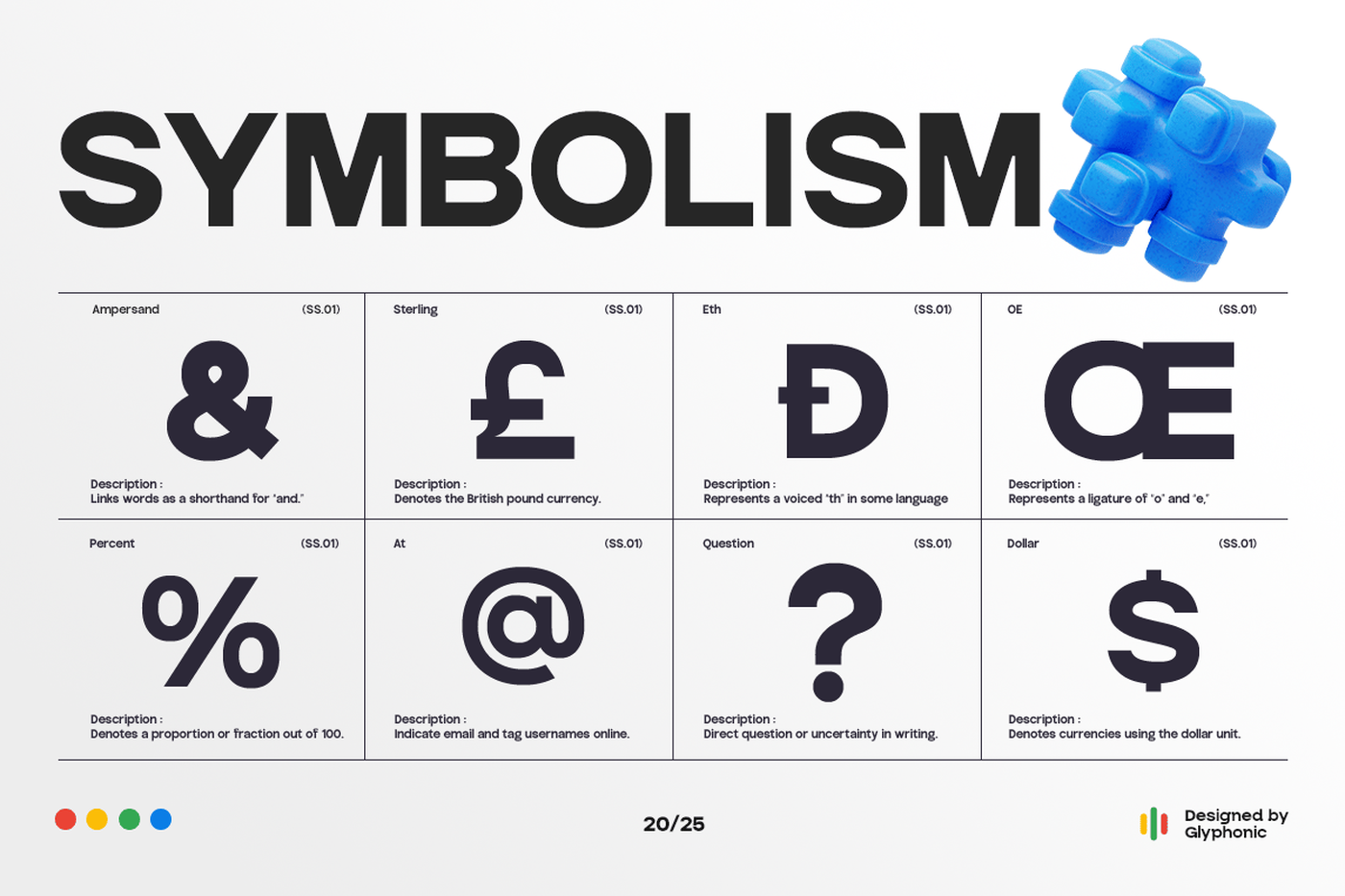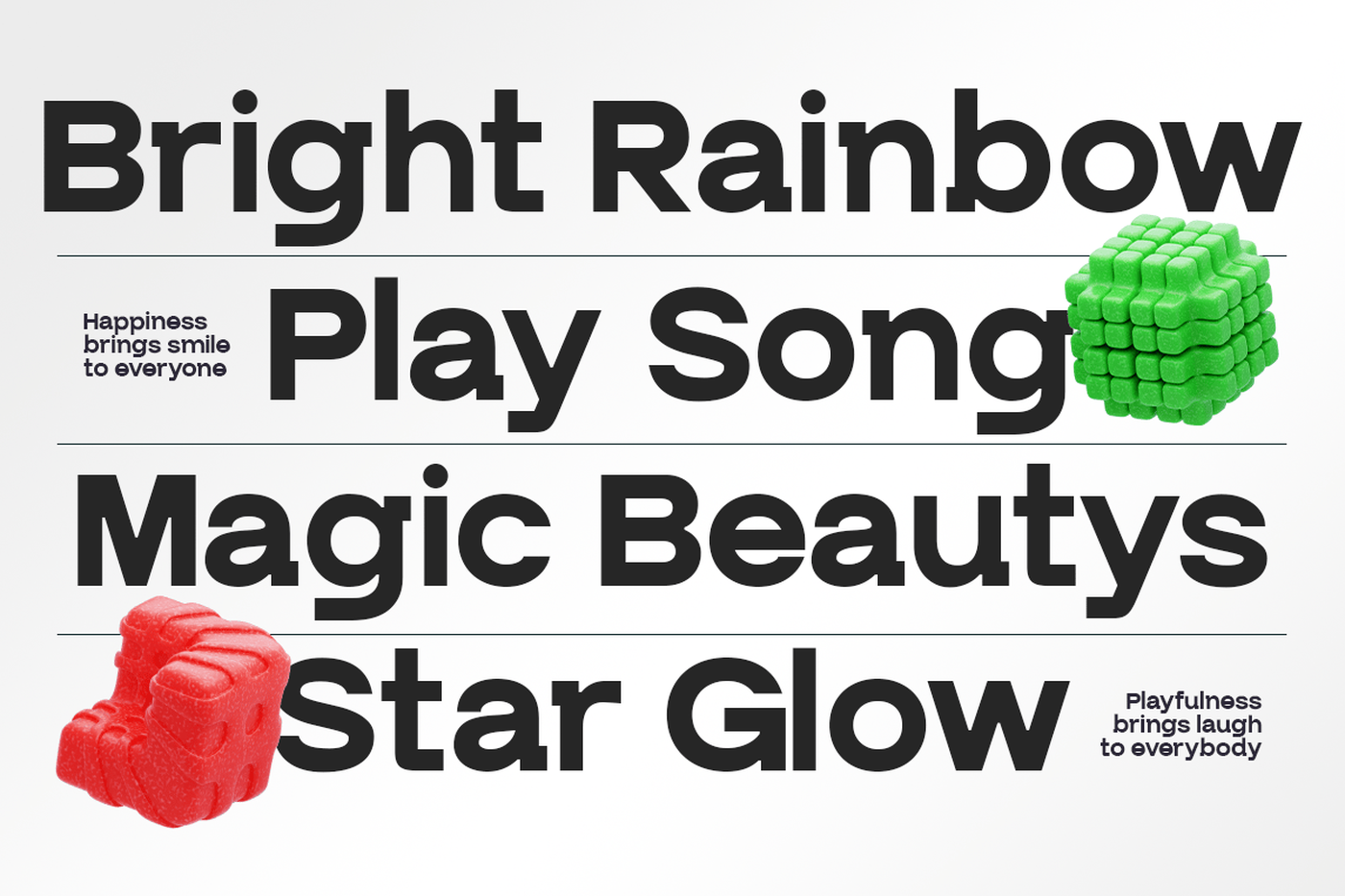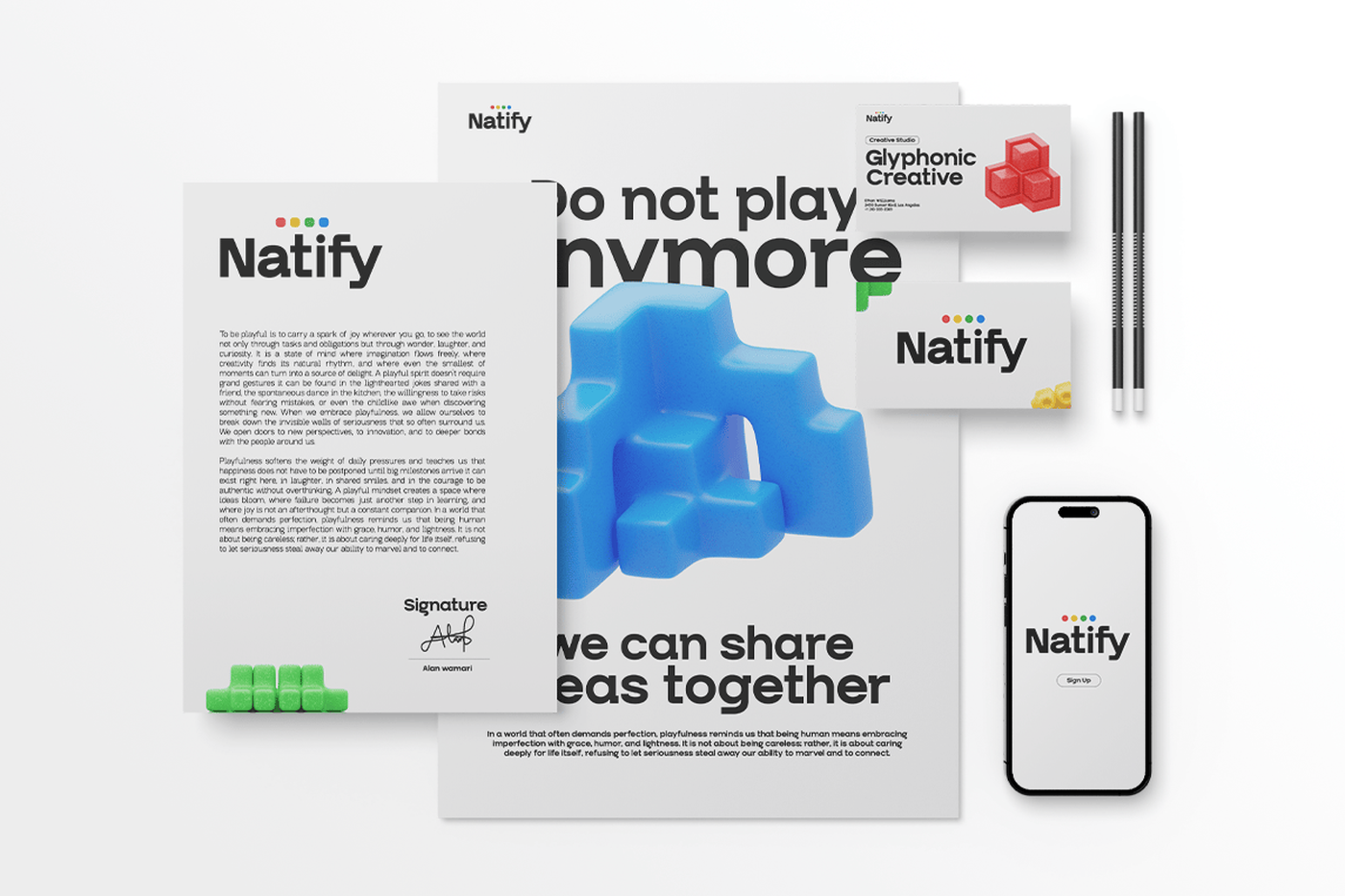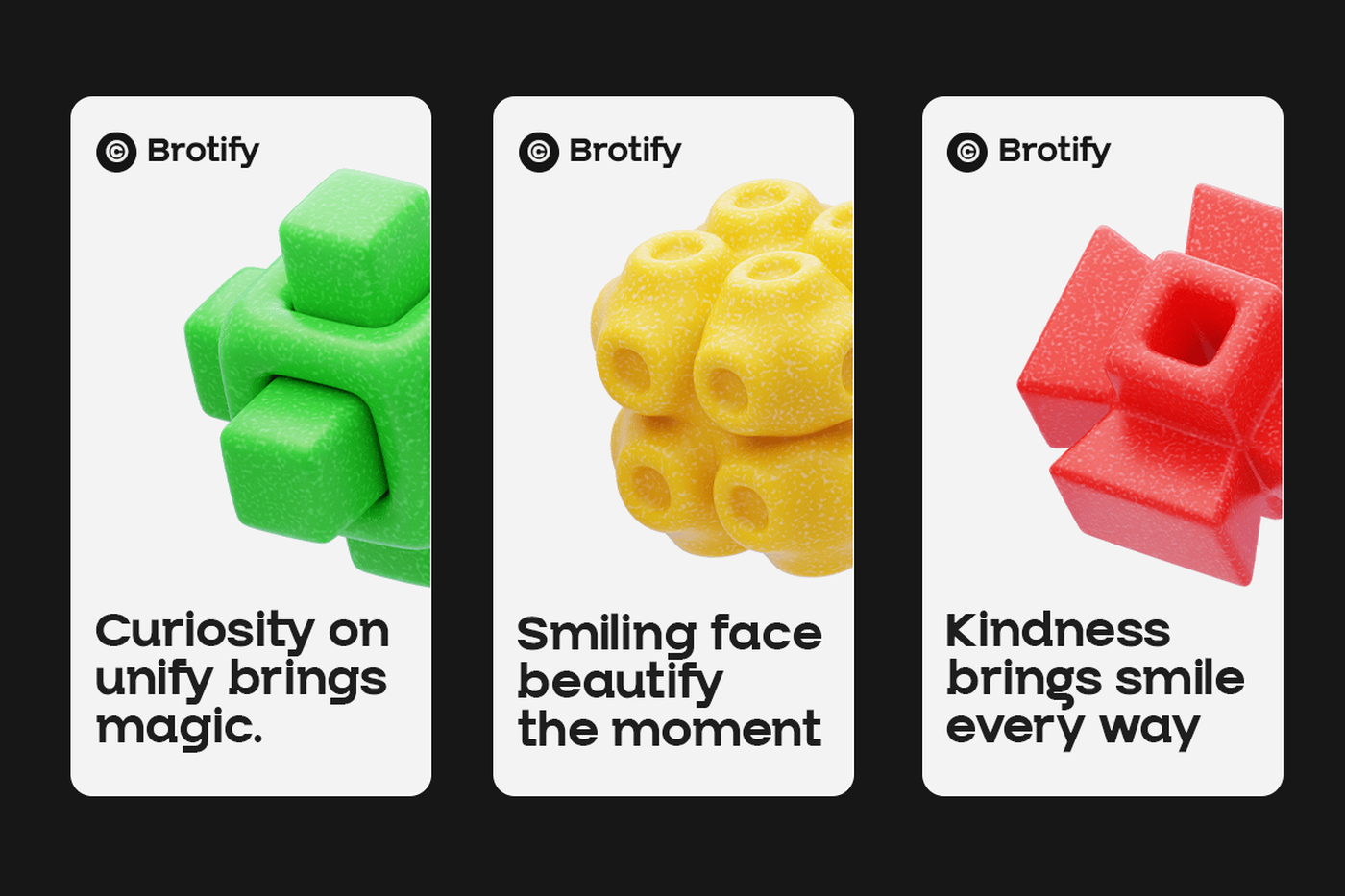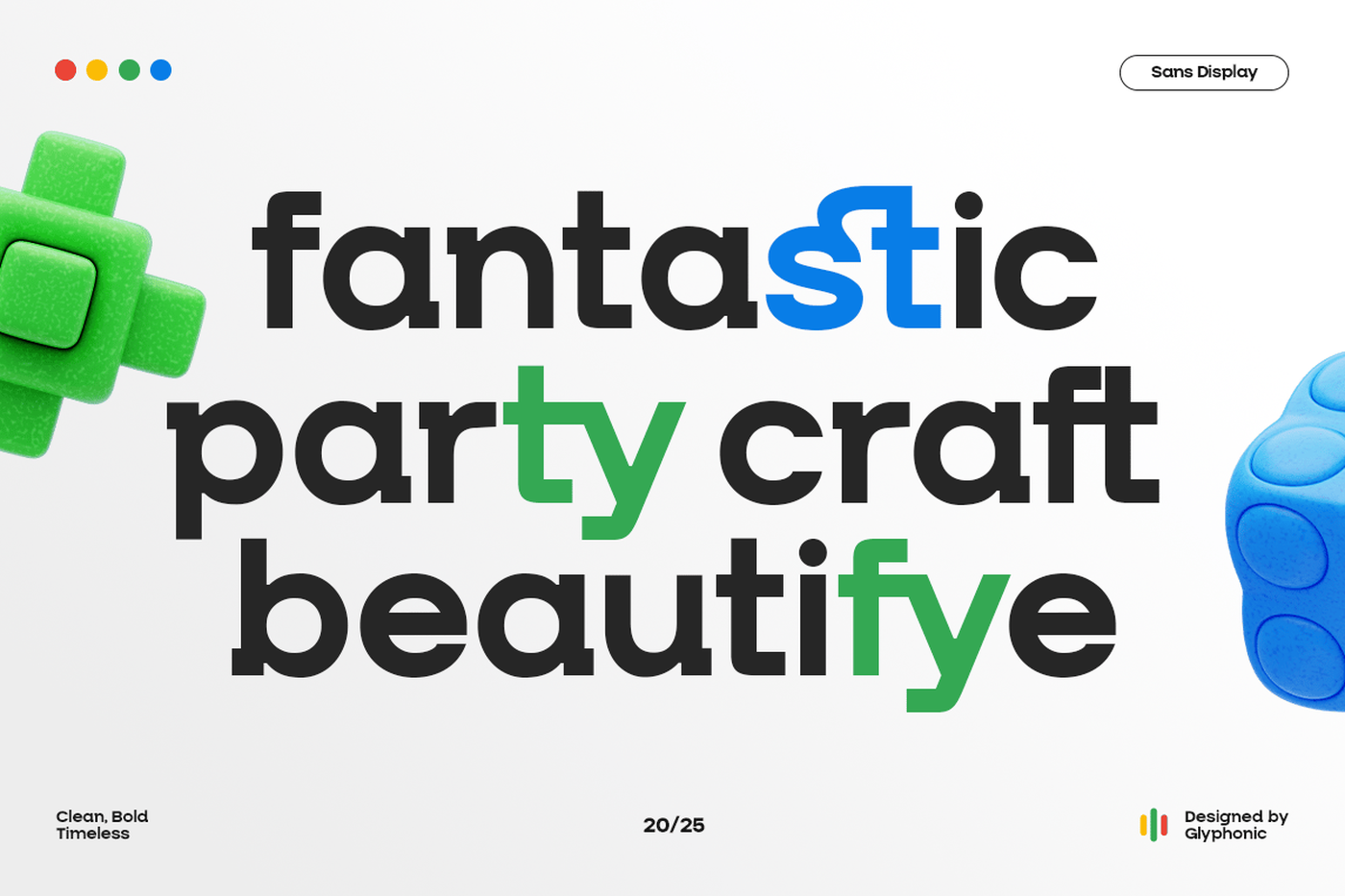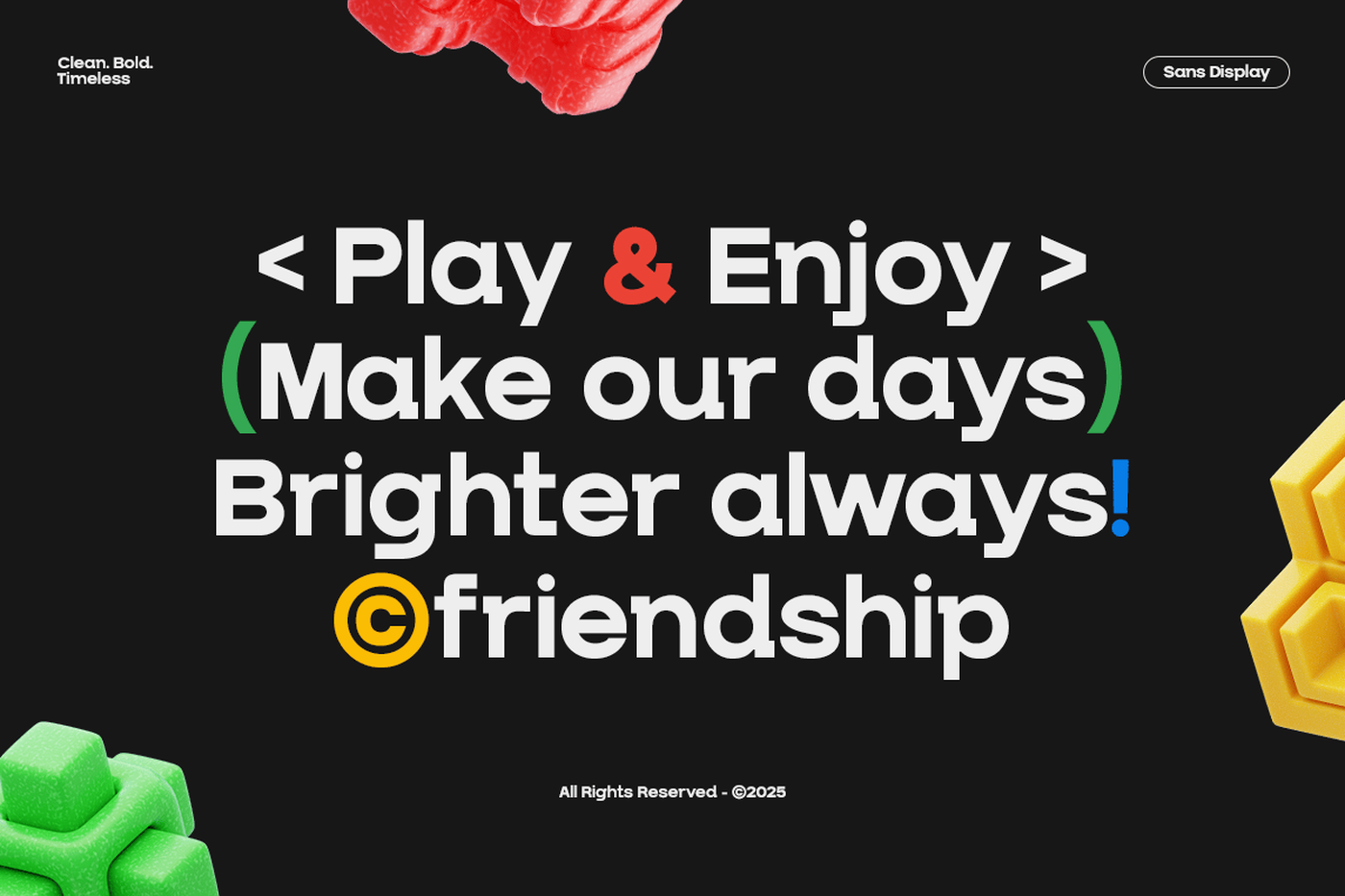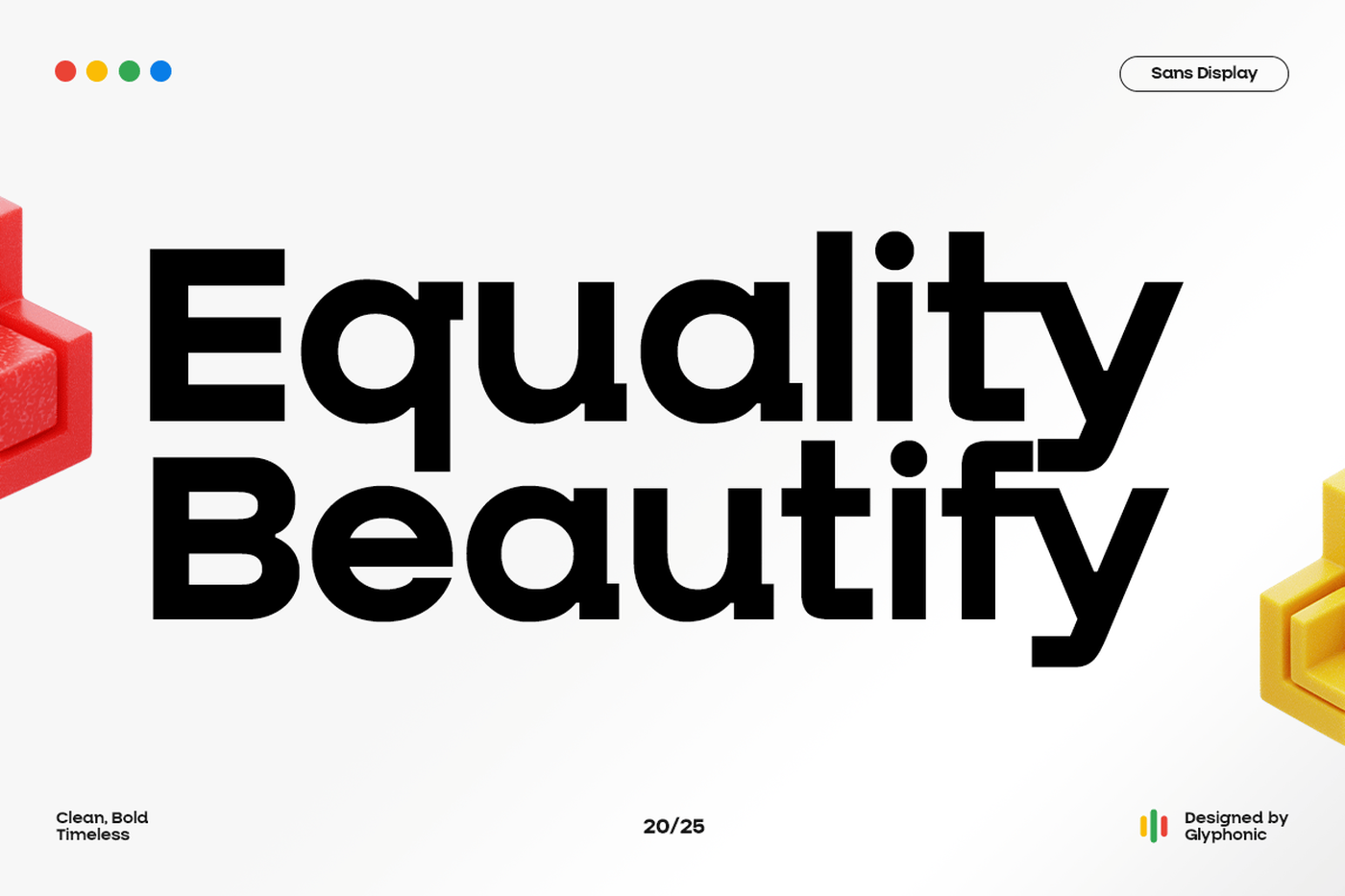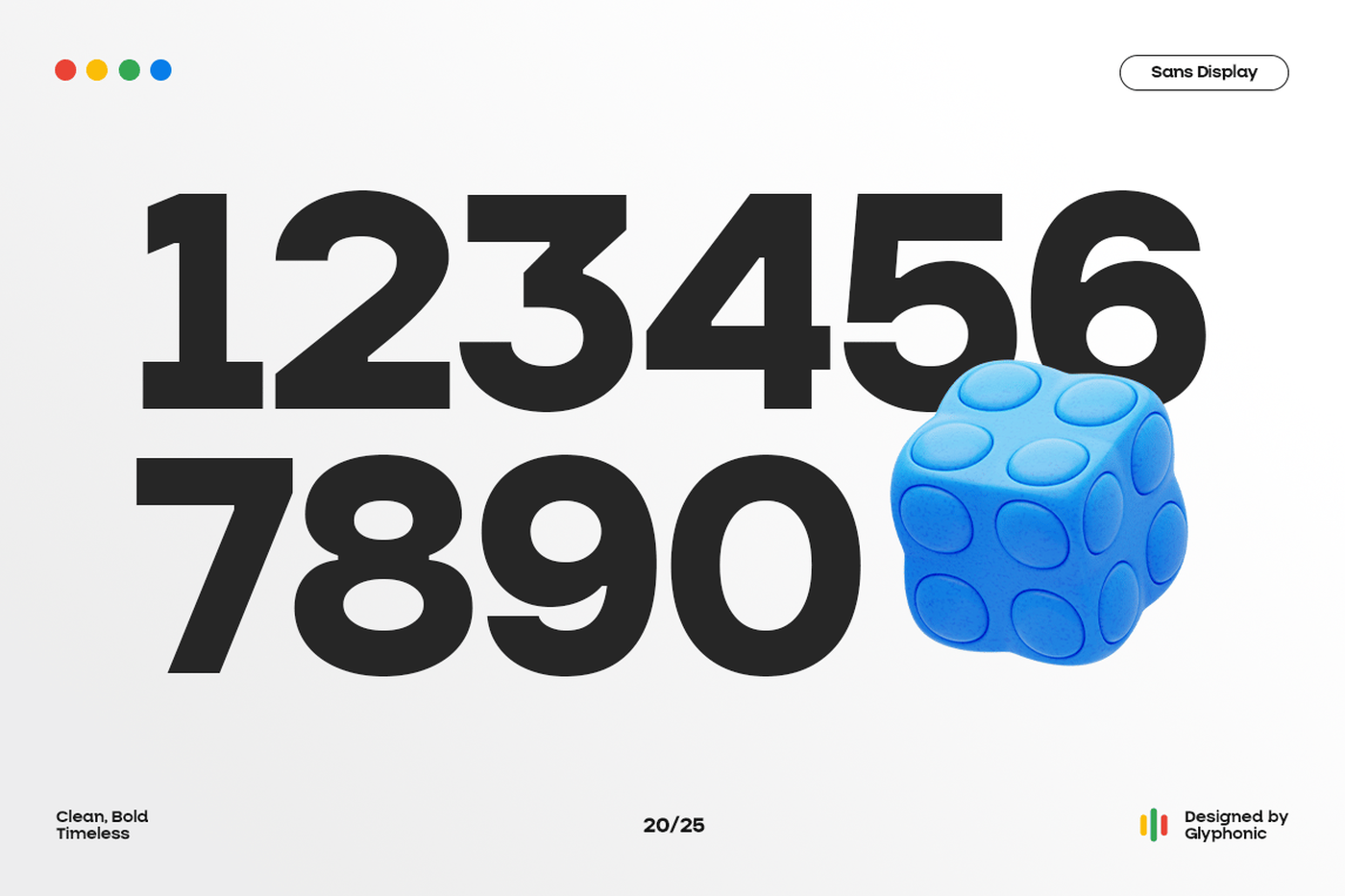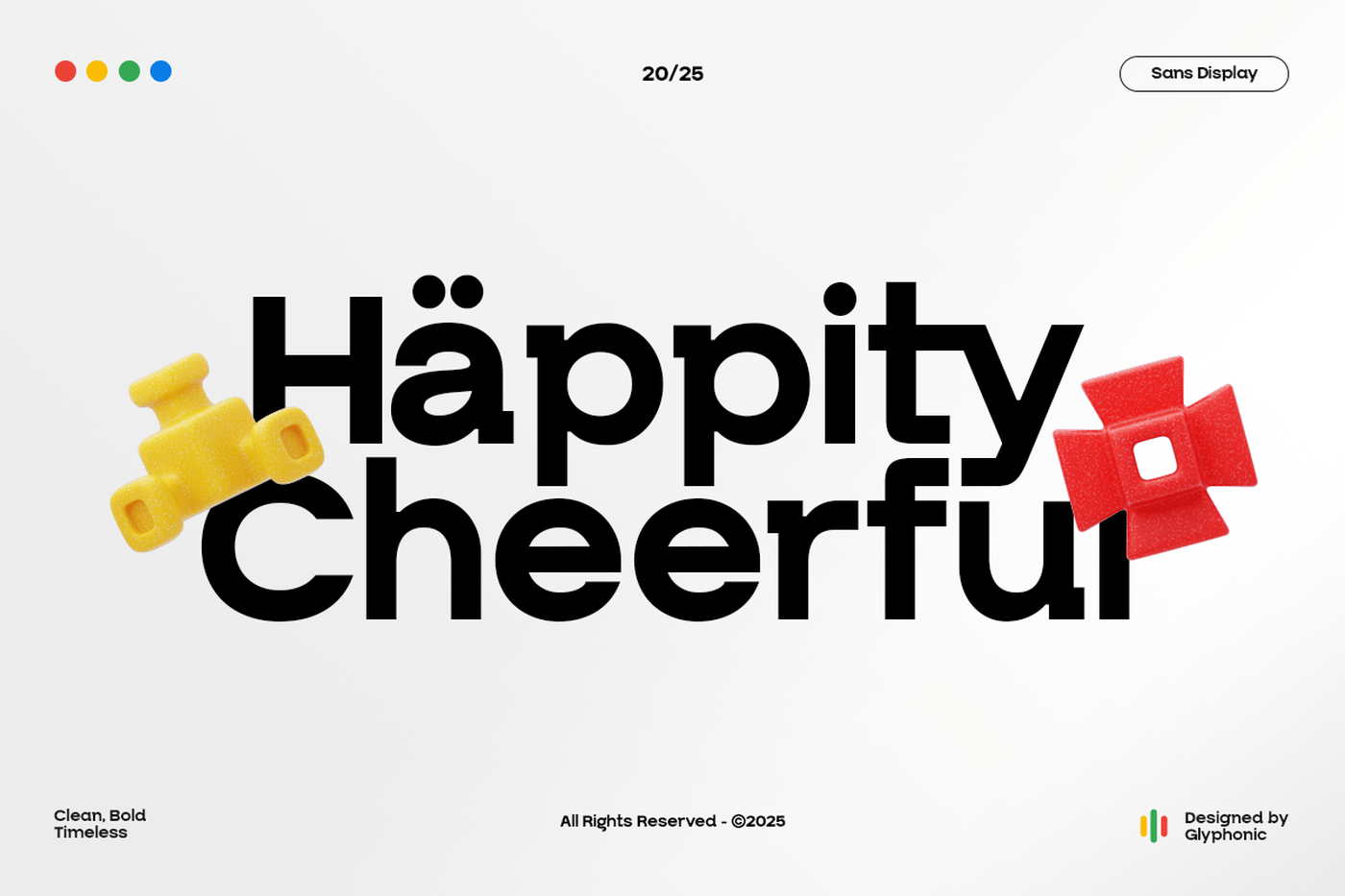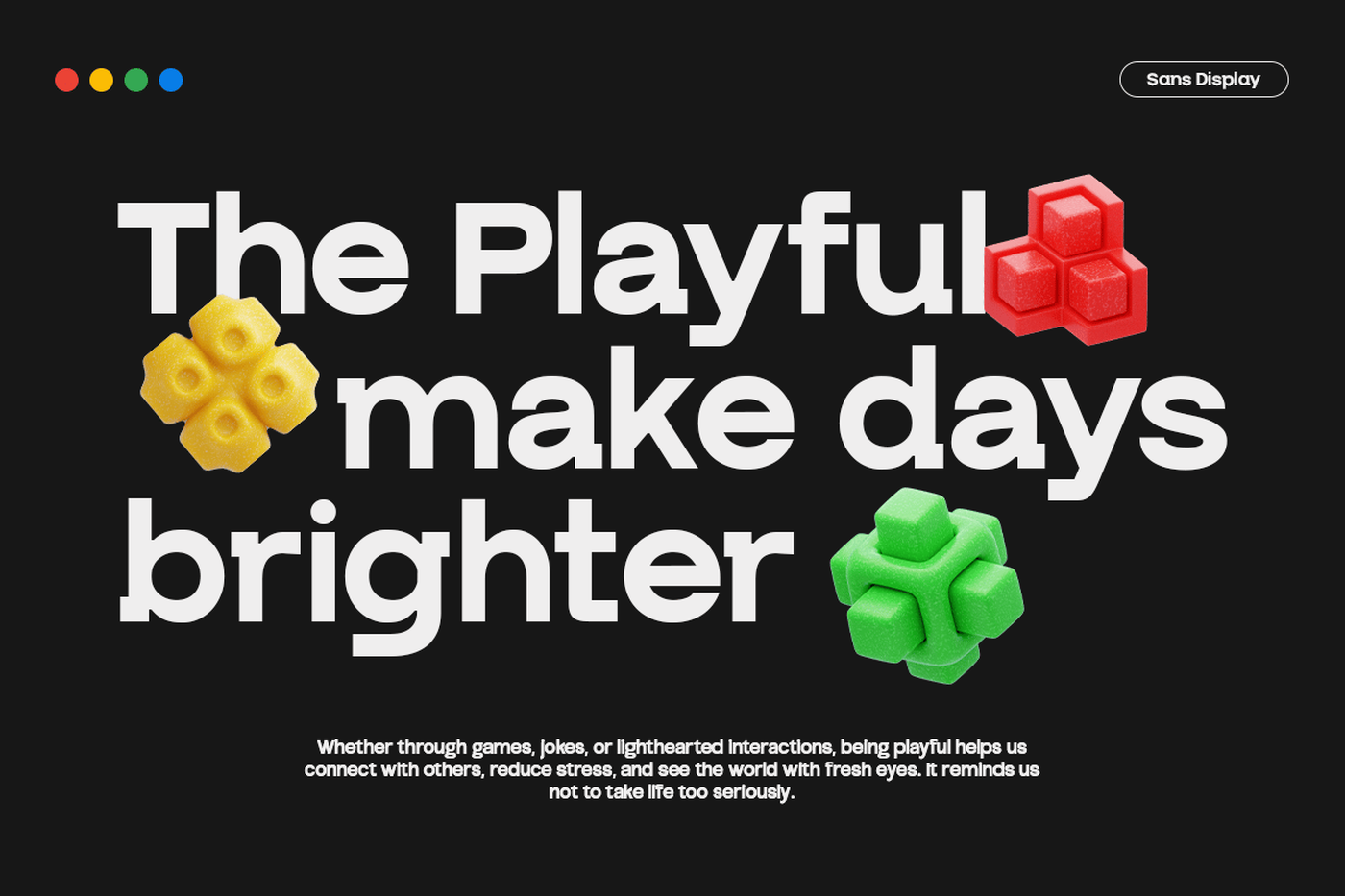
Natify - Bold Modern Sans Font
Natify is a contemporary sans serif typeface designed for clarity, strength, and versatility. With its clean geometric structure and confident bold strokes, it delivers a powerful voice that adapts seamlessly across digital and print media. Crafted to embody simplicity without losing character, it’s ideal for branding, editorial layouts, tech-driven projects, and striking visual identities. Balanced proportions and precise detailing make GC Natify both adaptable and distinctive. Whether you’re designing sleek interfaces, impactful headlines, or minimalistic posters, this font brings boldness, modernity, and timeless elegance to your typography.
Font: Natify